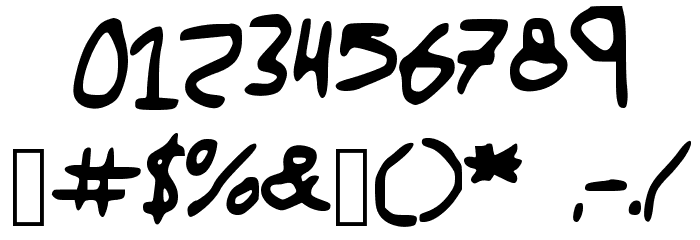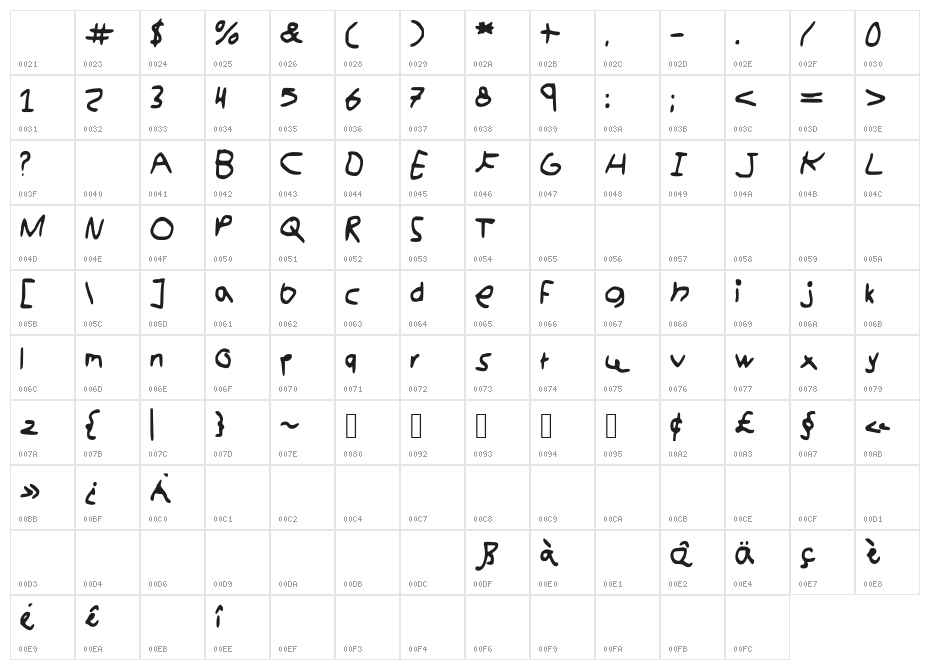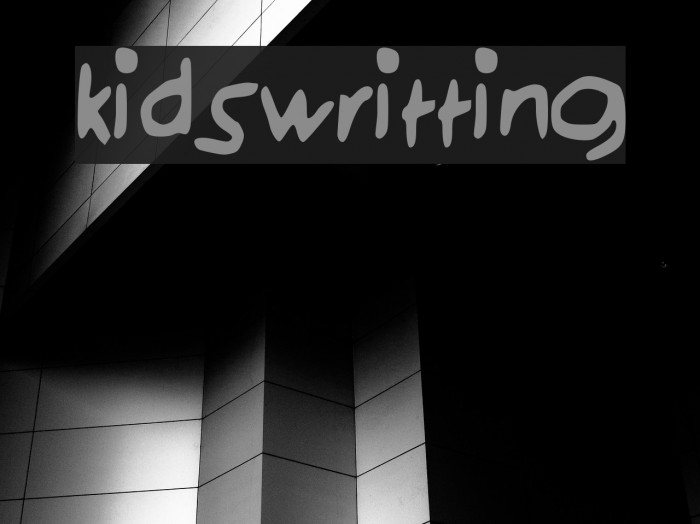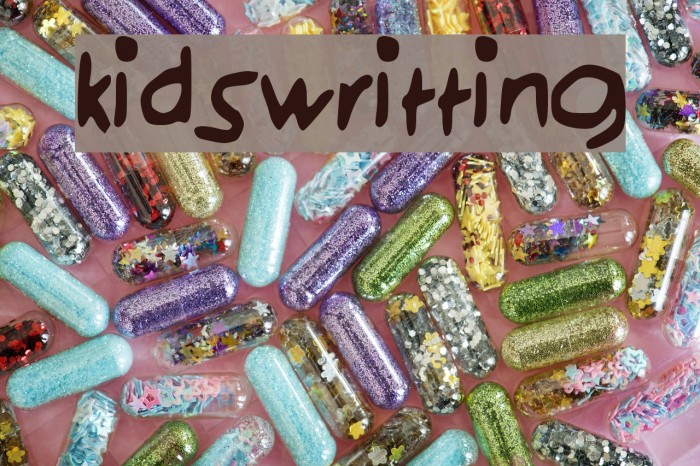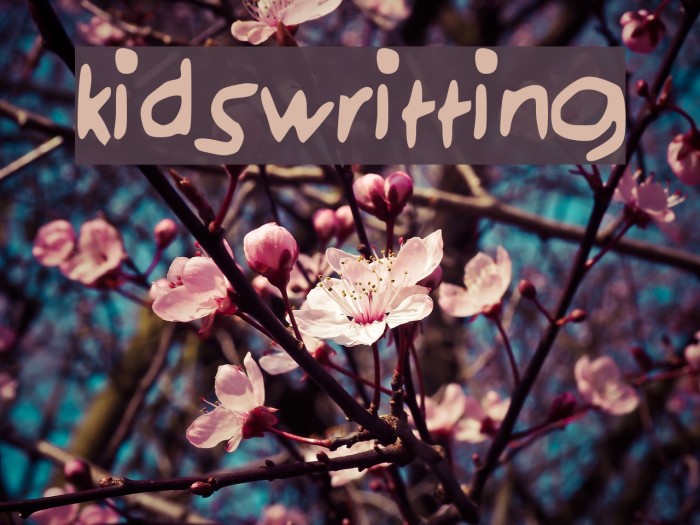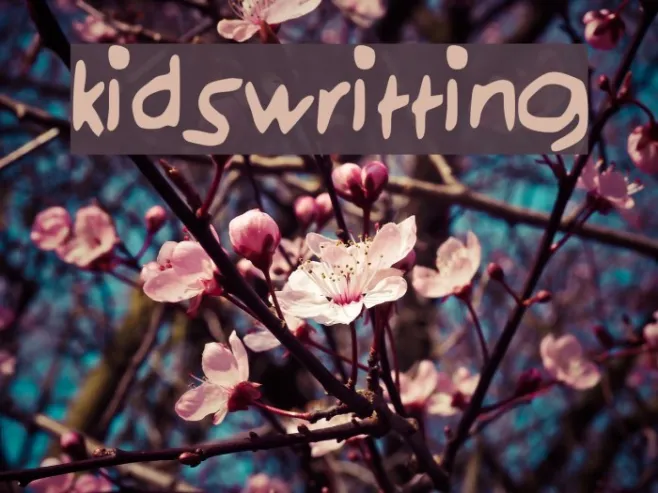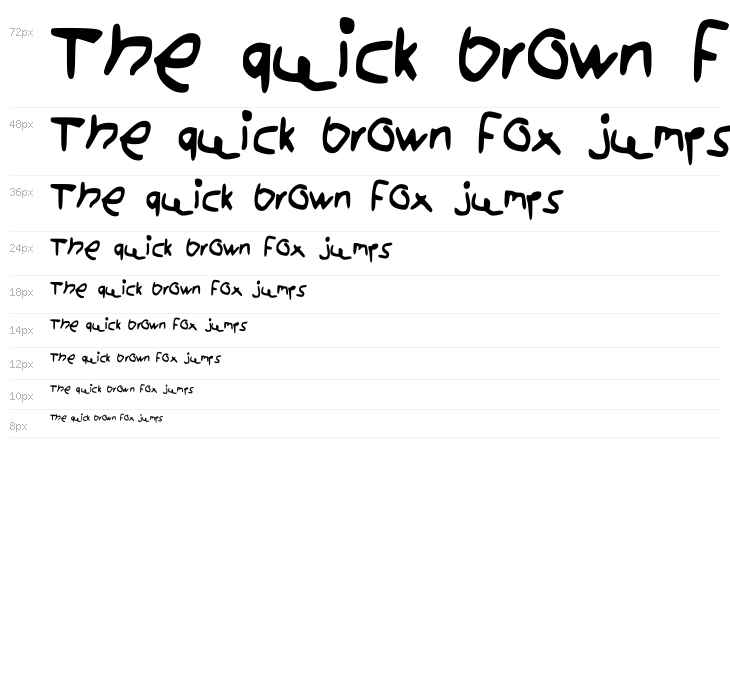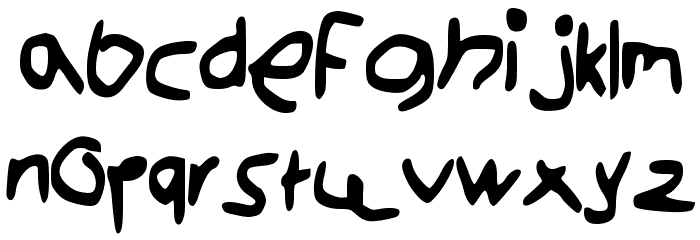
kidswritting Font
kidswritting Description
This playful and whimsical font mimics the natural, uneven strokes of a child's handwriting. The characters are irregular and slightly tilted, giving a sense of spontaneity and creativity. The uppercase and lowercase letters have a consistent style, with rounded edges and varying line thickness that adds to the hand-drawn effect. Numbers and special characters maintain the same playful aesthetic, making the font suitable for informal and fun projects. The overall appearance is casual and friendly, perfect for capturing a youthful and energetic vibe.
| Proposed Projects | Ideal for children's books, educational materials, playful branding, and creative projects that require a youthful touch. |